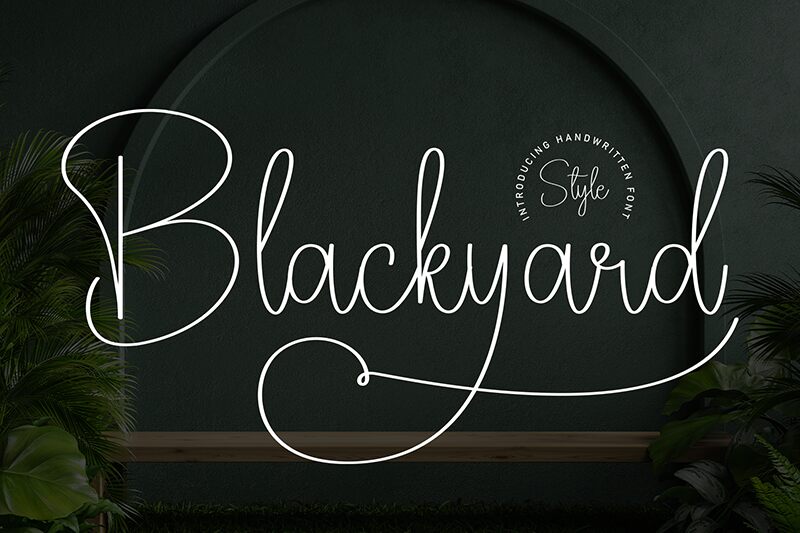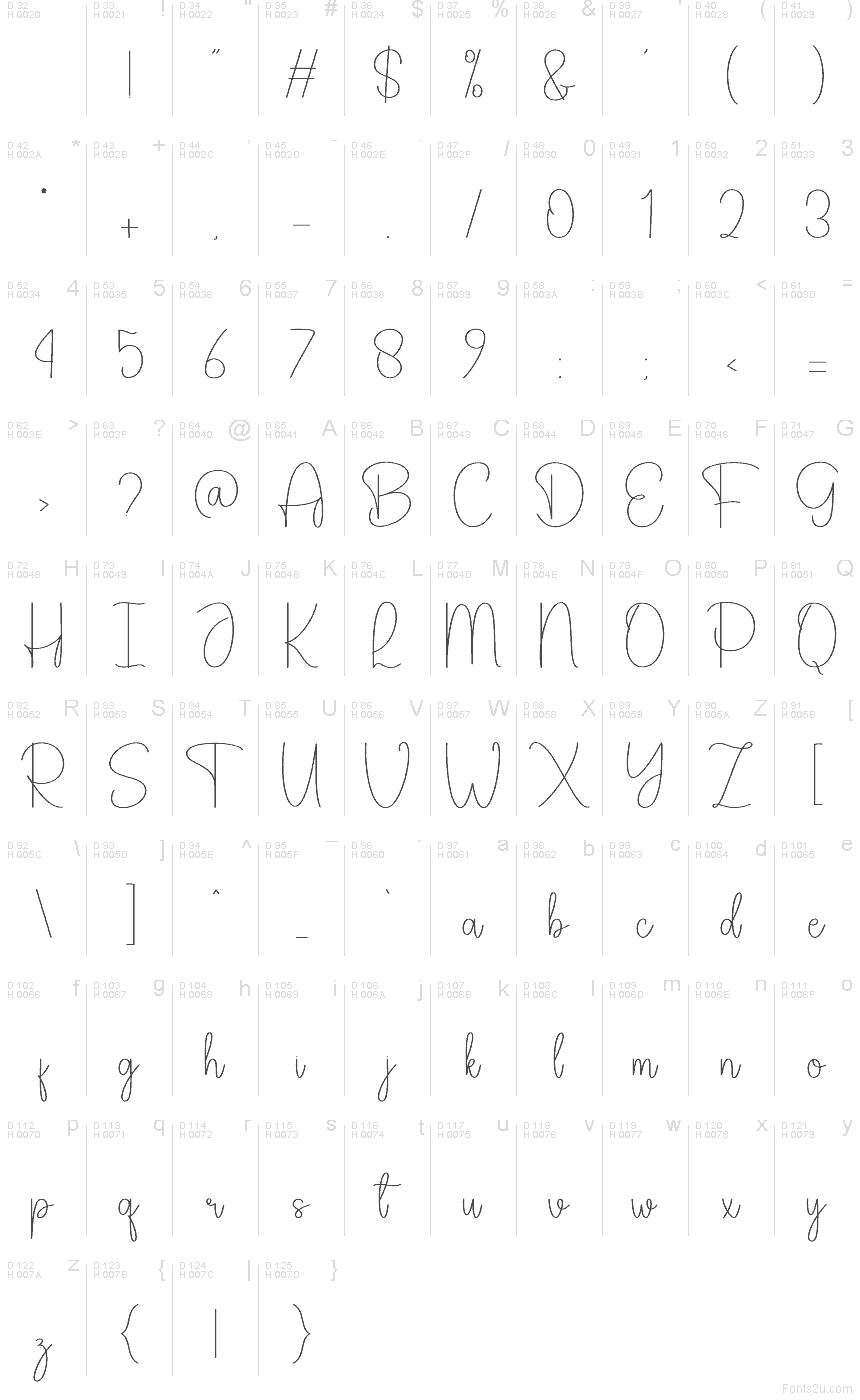
Blackyard
Blackyard font by Andi Moz is a free handwritten script typeface with the breezy charm of a carefully inked signature. Its thin, looping strokes and tall, relaxed letters feel like they were written with a smooth gel pen on crisp stationery—elegant but never stiff. The rhythm of the script flows in an easy line, giving logos, quotes, and headings a light, airy presence that feels personal and modern at the same time.
Using Blackyard, this free font shines on wedding invitations, save-the-dates, boutique branding, product packaging, social media graphics, and blog headers that call for a soft, romantic touch. The open spacing keeps it legible even at medium sizes, while larger settings really show off the graceful curves. For a polished combo, pair Blackyard with a clean geometric sans serif for body text to let the script handle all the charm and emphasis.